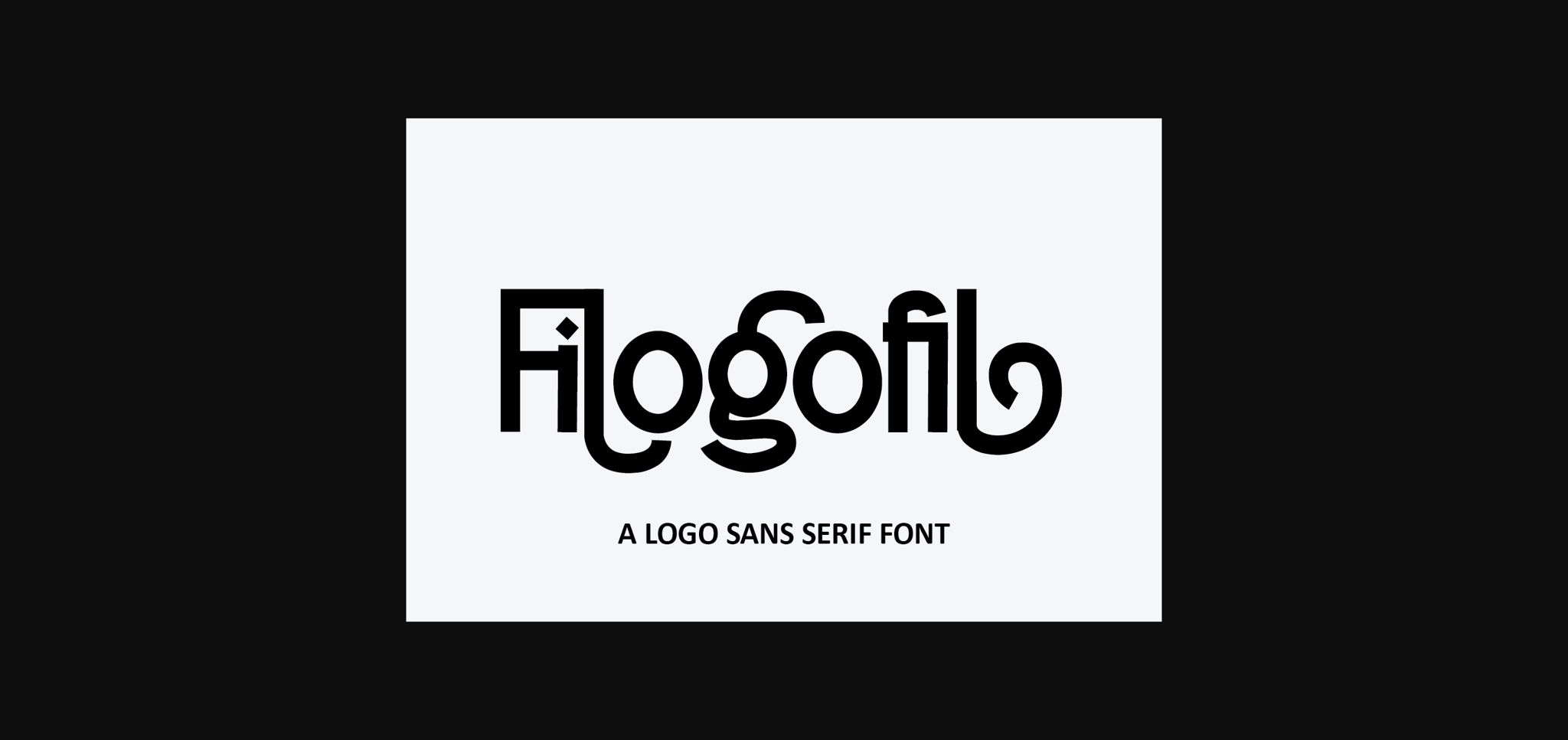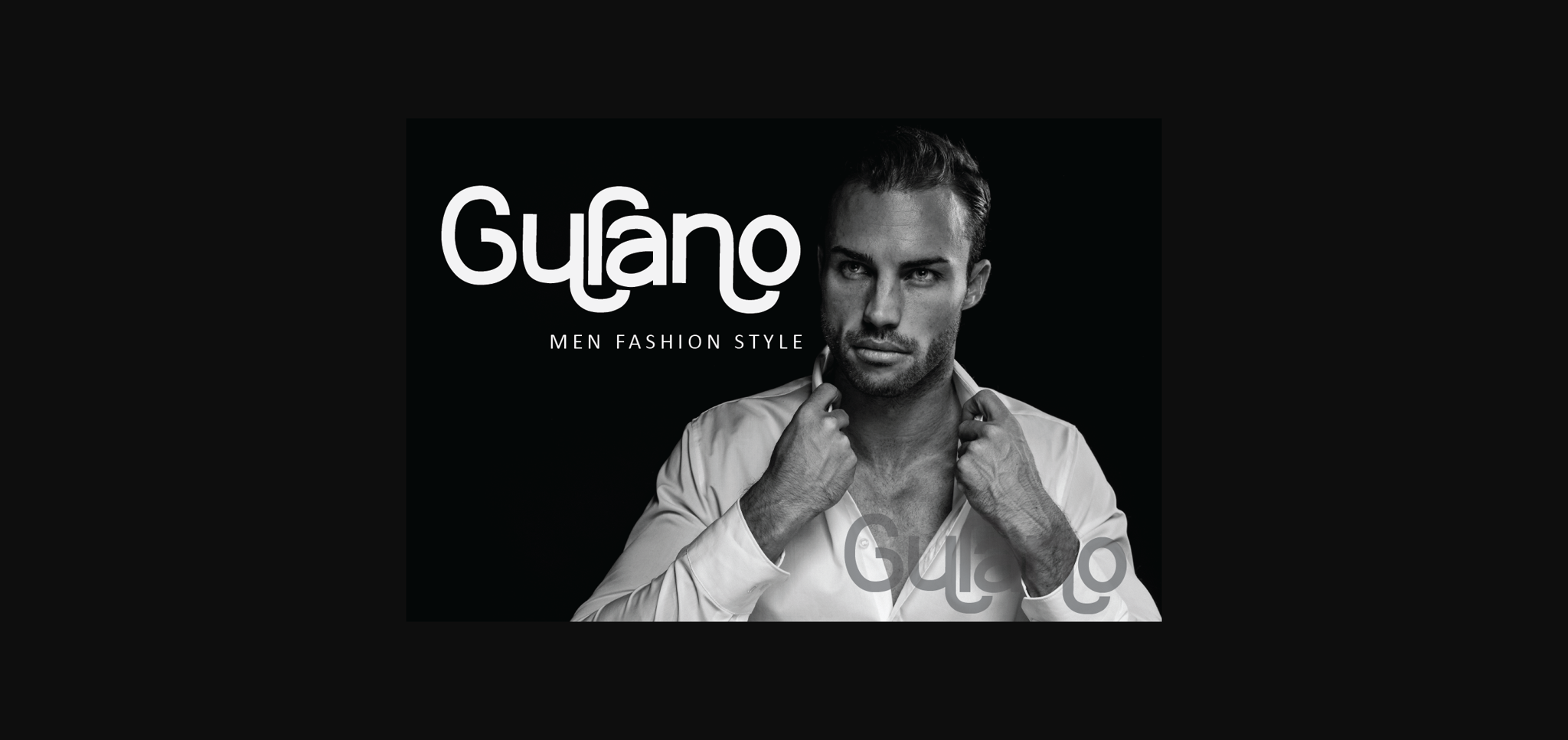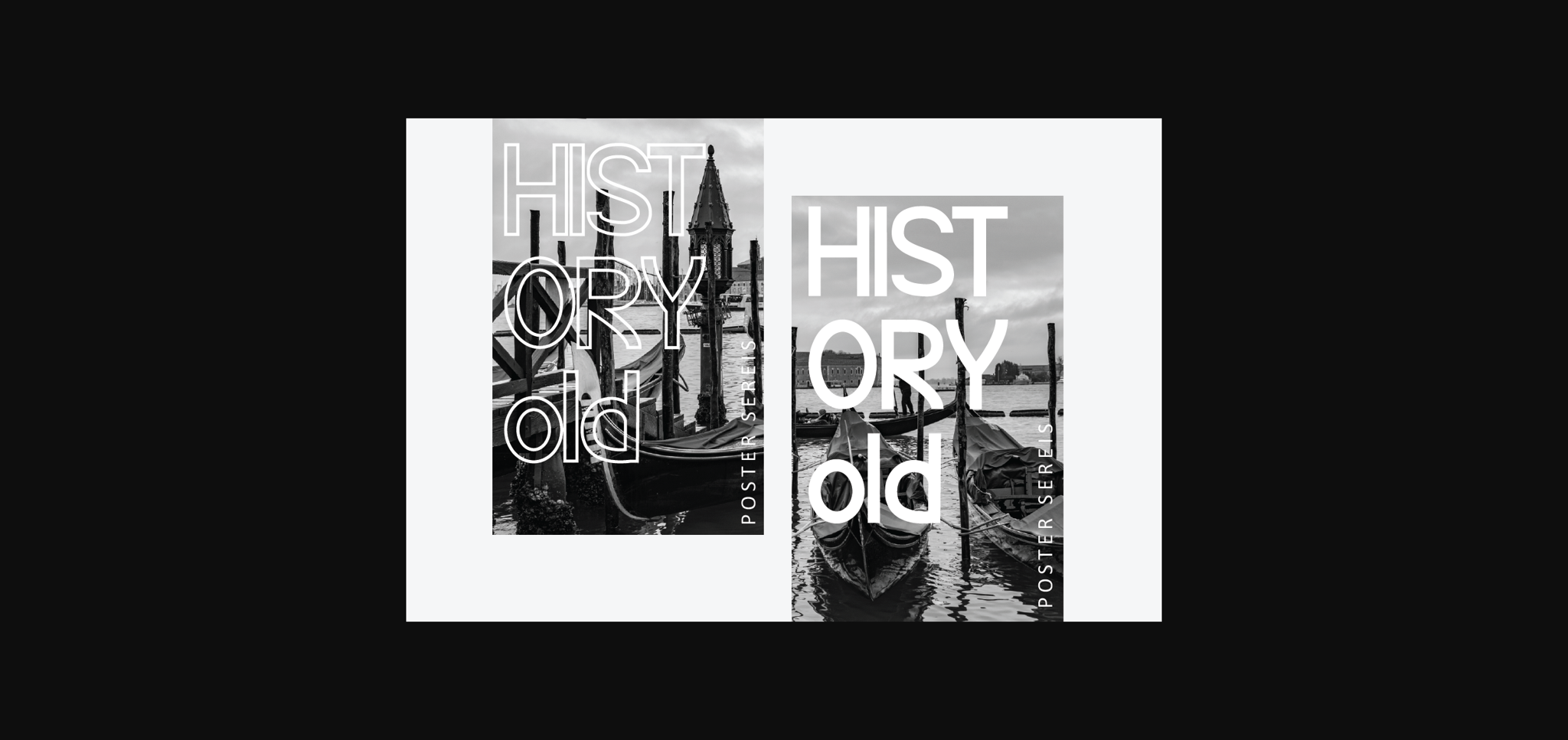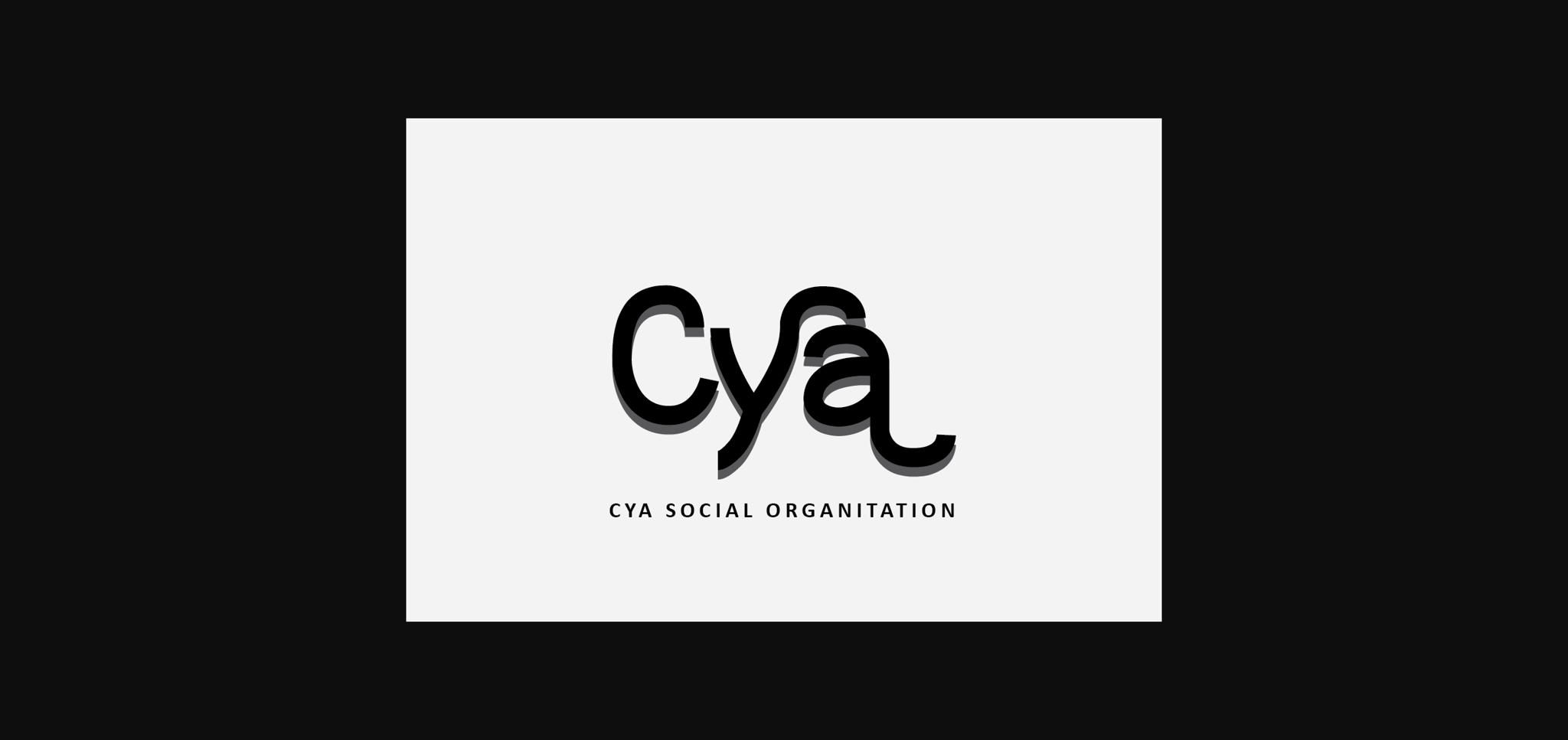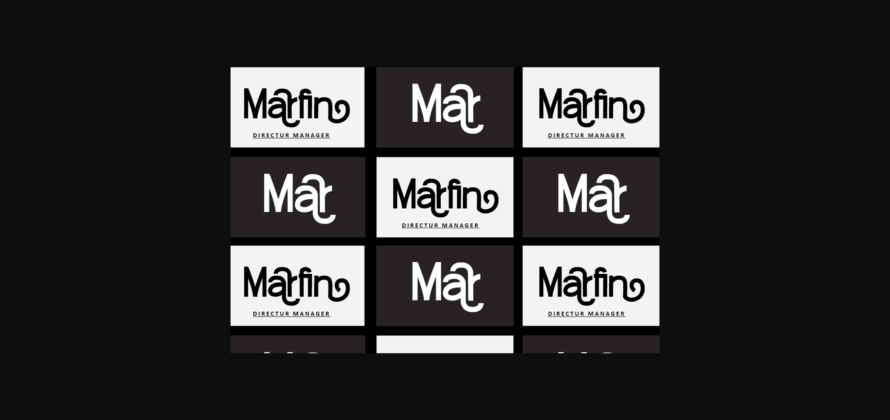
Filogofil Font
About Filogofil Font
Filogofil is a modern and clean sans serif font. Its versatility and neat vibe will brighten up each of your designs. Have fun with this beautiful font and explore its endless variations.